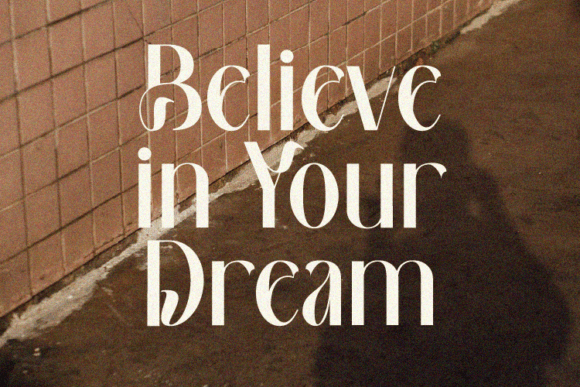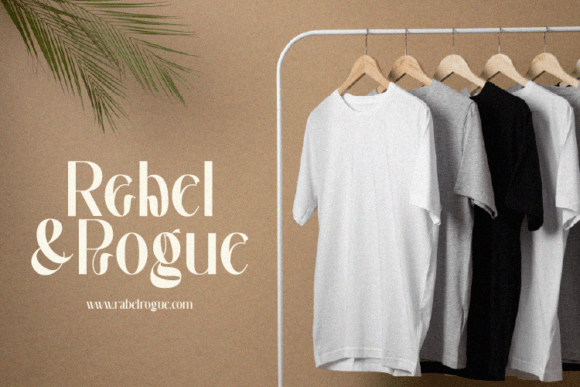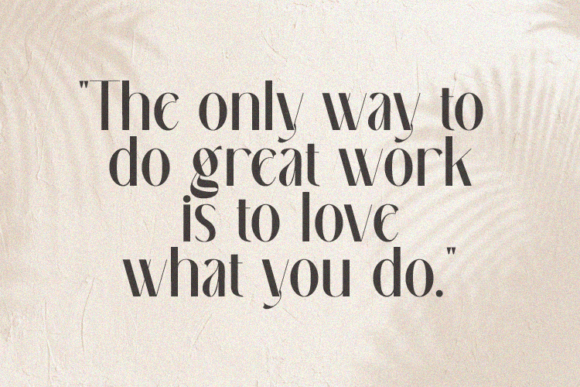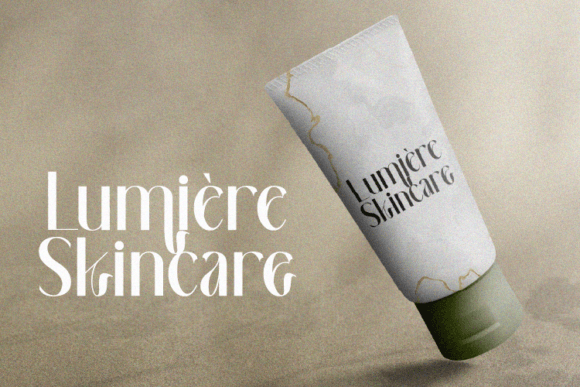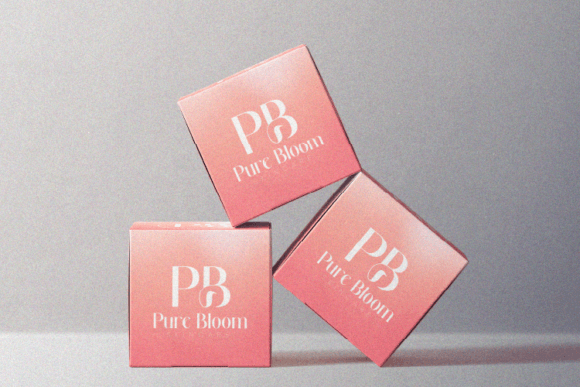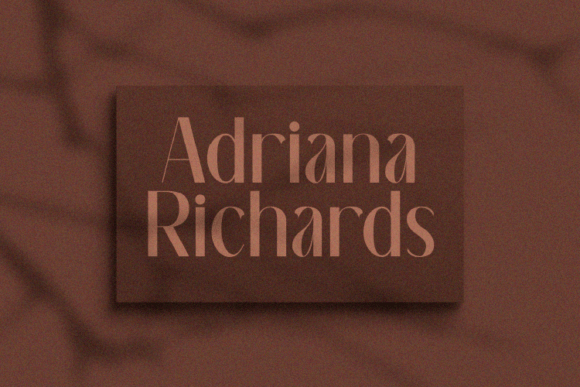
Introduction to Banegsa Font
Banegsa is a modern and stylish sans serif font.
Its elegant and cool look makes it the perfect choice for logos, branding, invitations, stationery, wedding designs, social media posts, and so much more .
Key Features of Banegsa Font
Why Choose Banegsa Font?
Banegsa Font offers exceptional quality and versatility, making it a valuable addition to your design toolkit. Whether you’re creating for personal projects or commercial use, Banegsa Font delivers professional results.